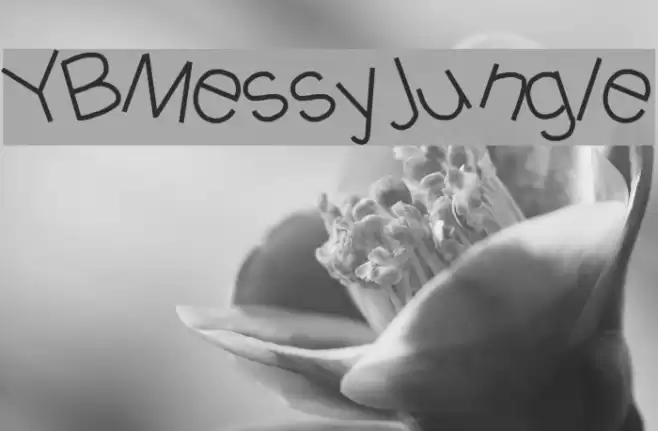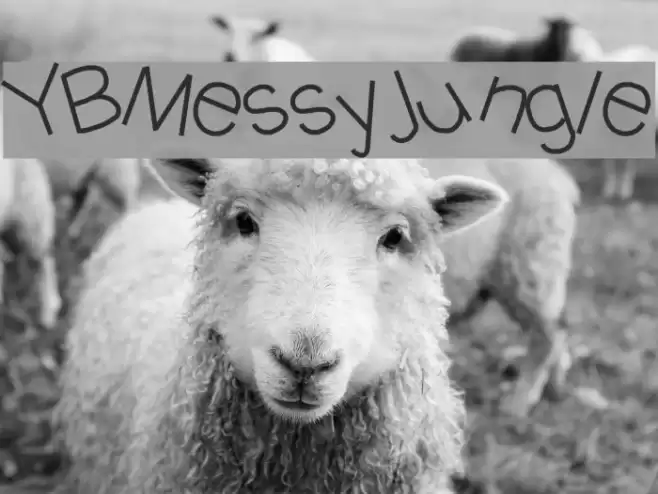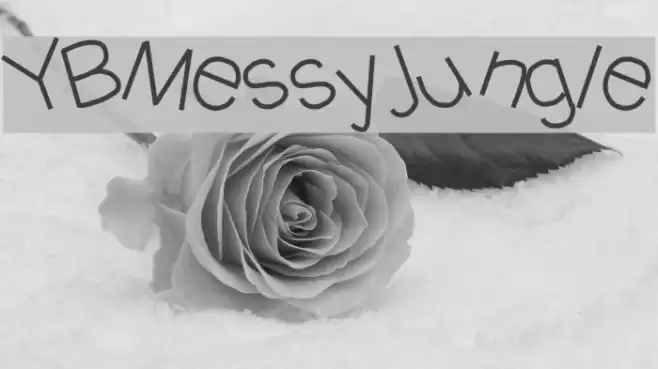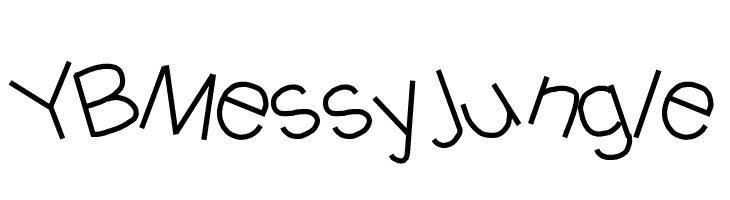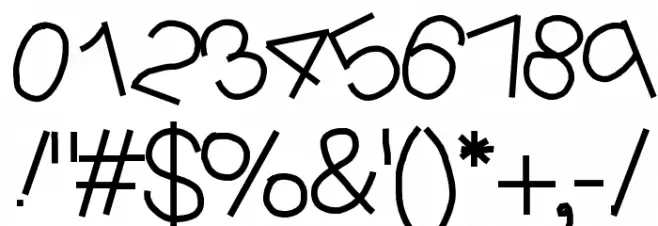
YBMessyJungle Font
YBMessyJungle Description
This playful and whimsical font features a hand-drawn aesthetic with irregular, slightly tilted characters that give it a lively and dynamic appearance. The strokes are consistent in width, providing a uniform look despite the quirky angles and curves. The uppercase and lowercase letters maintain a cohesive style, with rounded edges and a casual, informal vibe. Numbers and special characters follow the same playful design, making this font versatile for creative projects. Its unique style captures attention and adds a fun, artistic touch to any text.
A playful, hand-drawn font with quirky, irregular characters and a lively appearance from Uncategorized fonts.
- Proposed Projects: Ideal for children's books, playful branding, creative posters, and informal invitations.